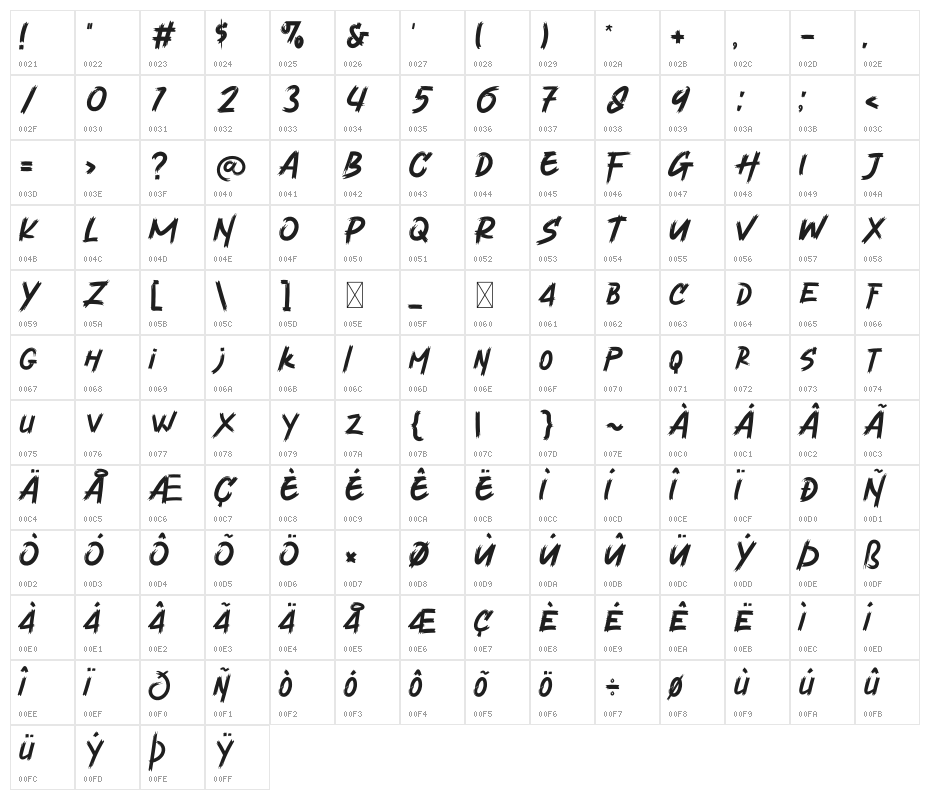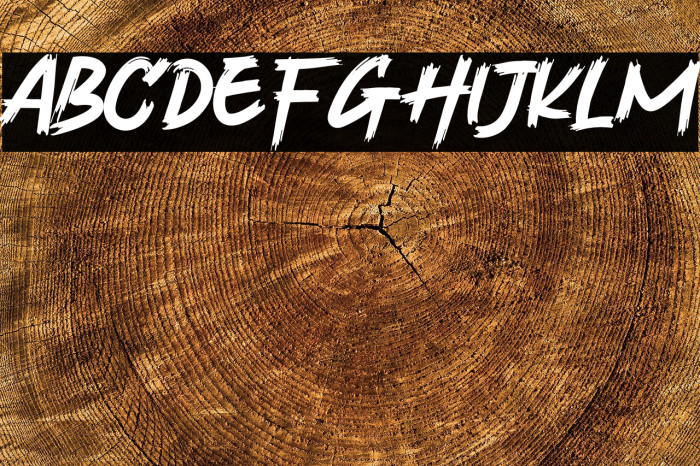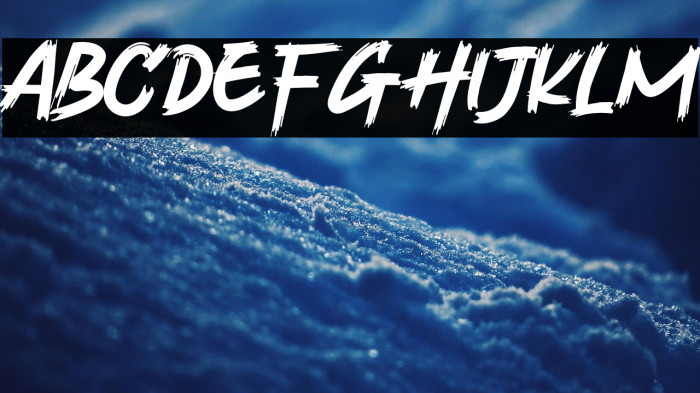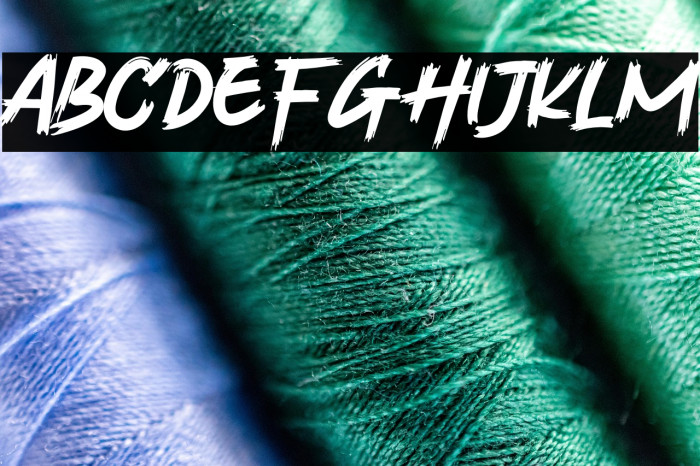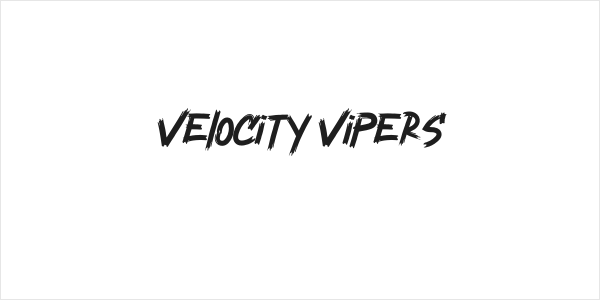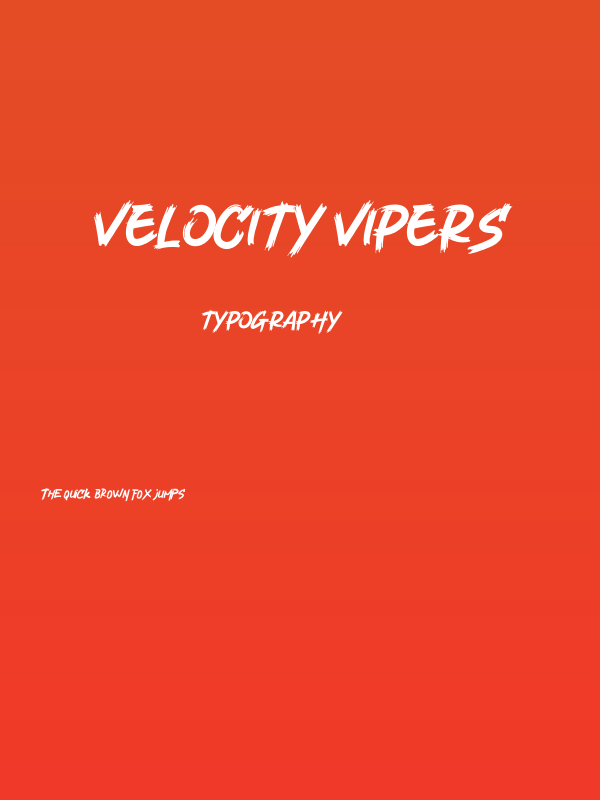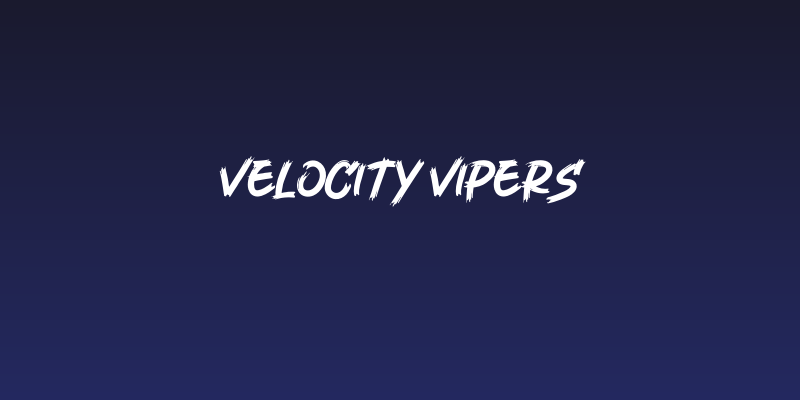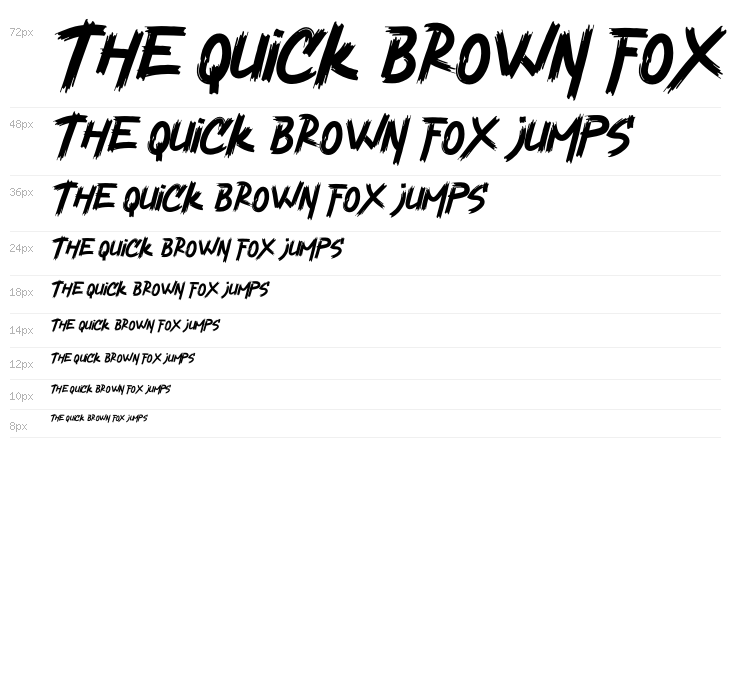
Velocity Vipers Font
Velocity Vipers Description
A bold, brush-style font with dynamic strokes and an energetic appearance, suitable for impactful designs.
| Overall Style | Dynamic, Energetic |
| Use Case | Headlines, Posters, Branding |
| Proposed Projects | Posters, headlines, sports branding, dynamic advertisements. |